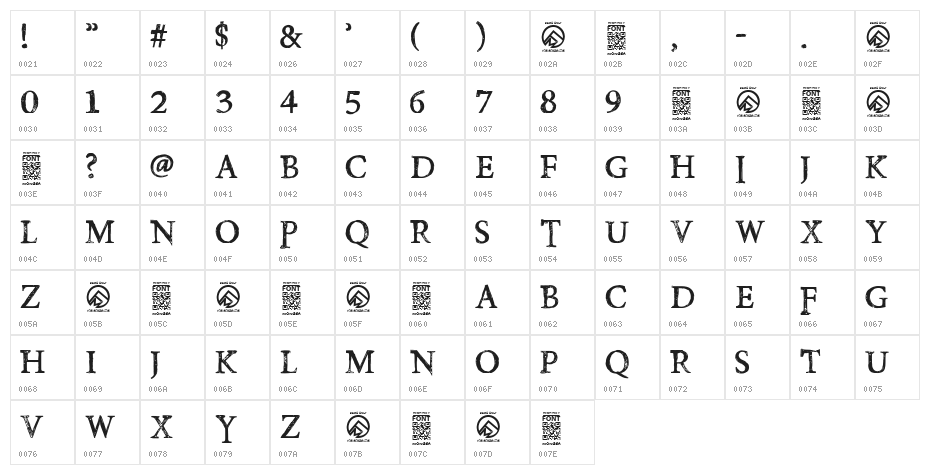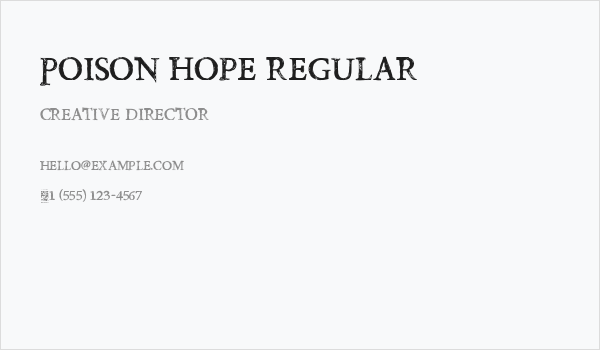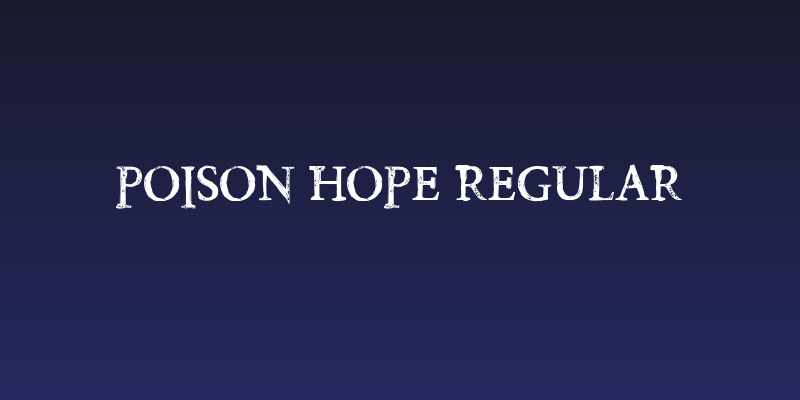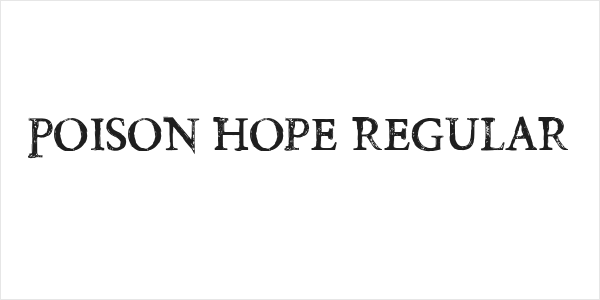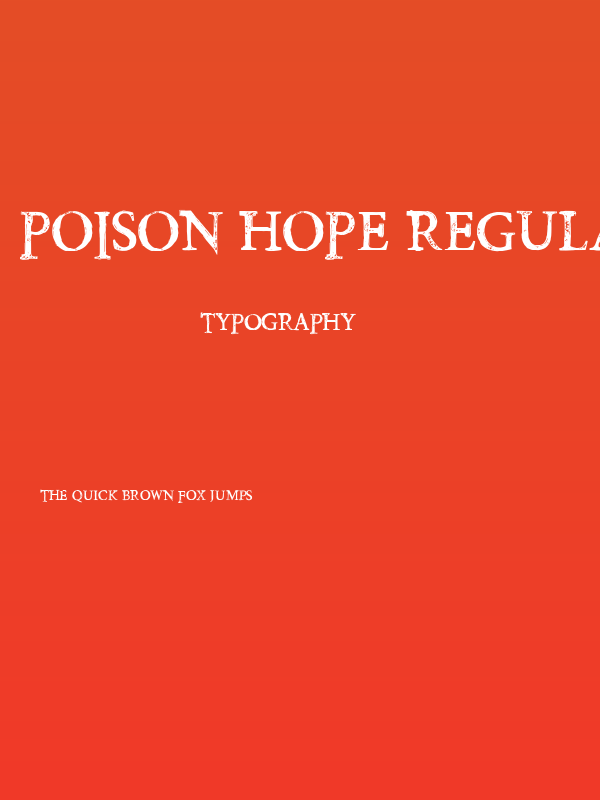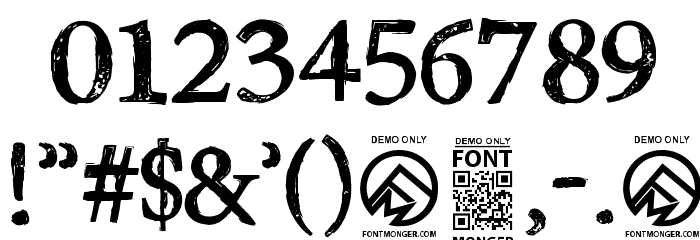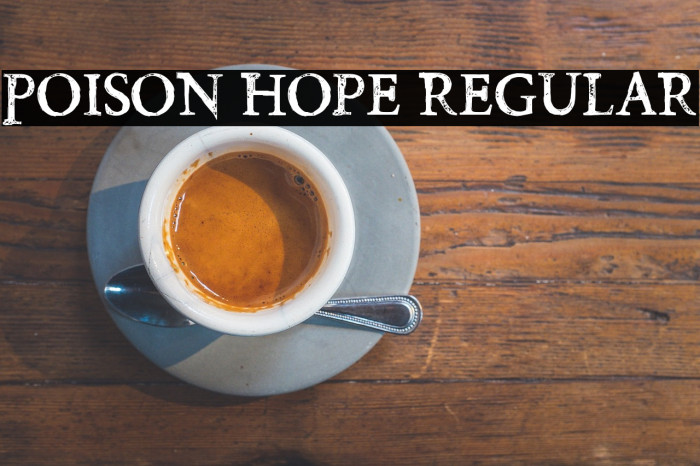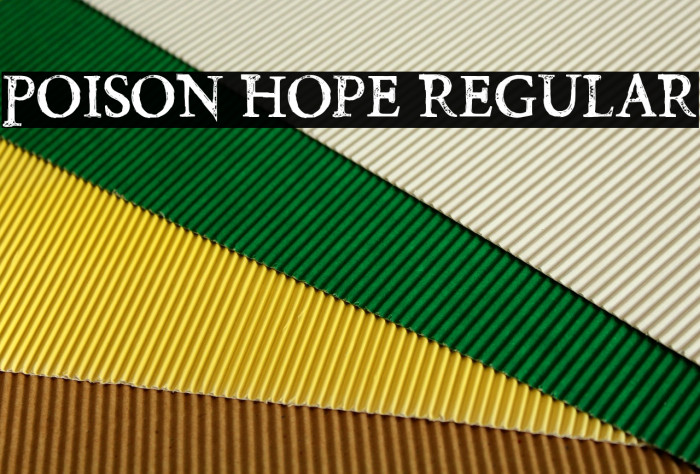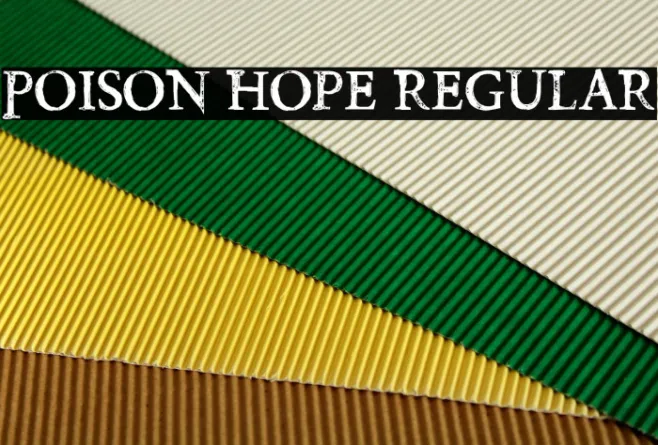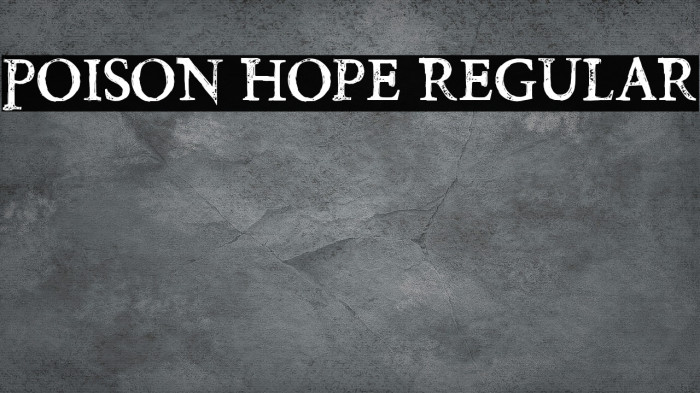
Poison Hope Regular Font
Poison Hope Regular Description
This font features a distressed and grungy aesthetic, with a textured appearance that gives it a worn, vintage feel. The characters have a serif style, with uneven edges and a hand-crafted look. The uppercase and lowercase letters maintain a consistent design, while the numerals and special characters complement the overall theme. This font's unique style makes it stand out, ideal for projects that require a bold and eye-catching typeface.